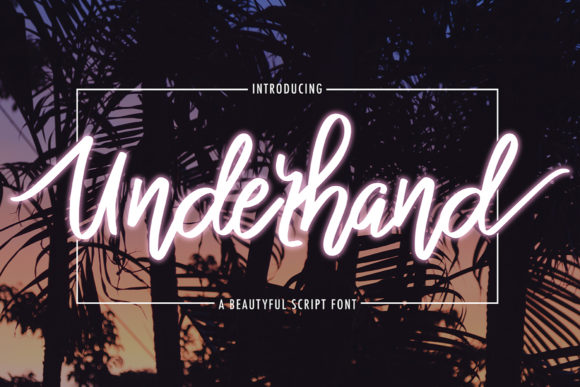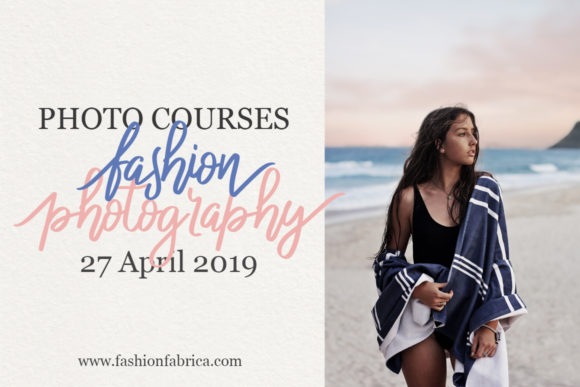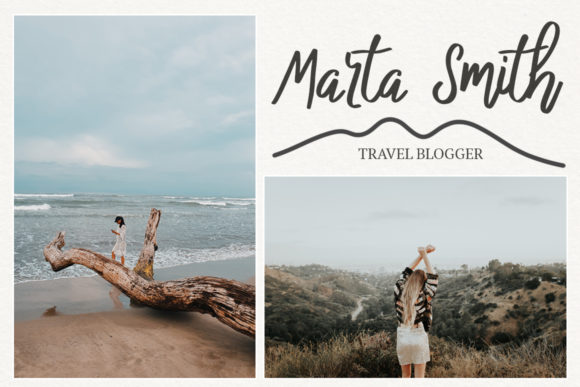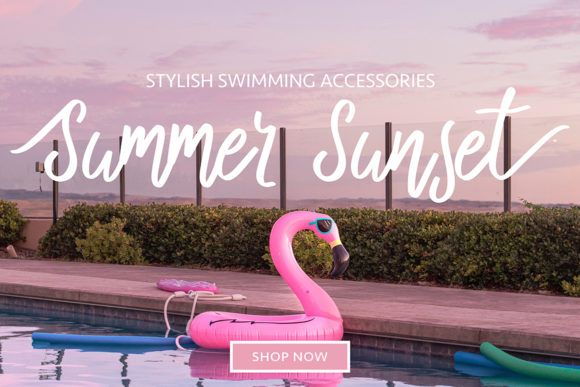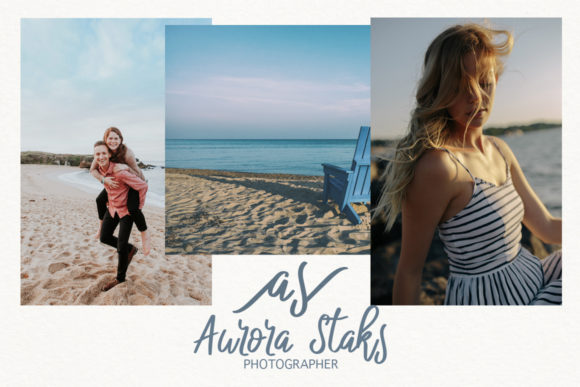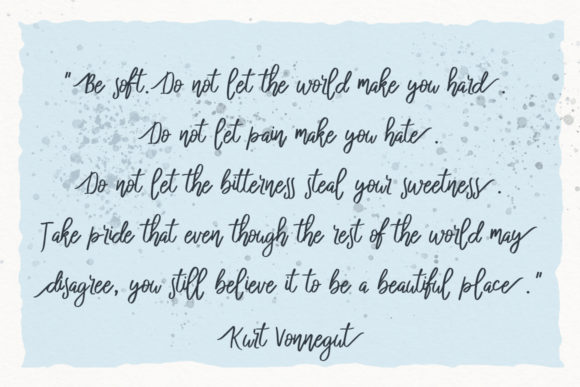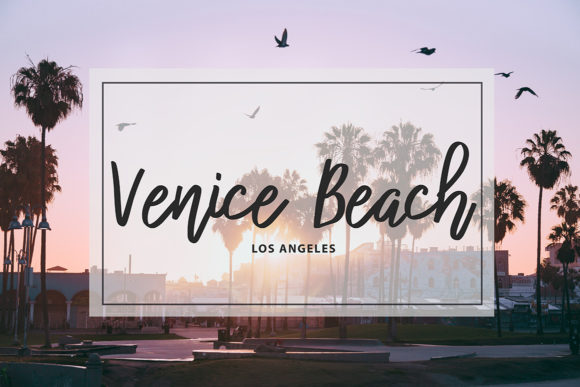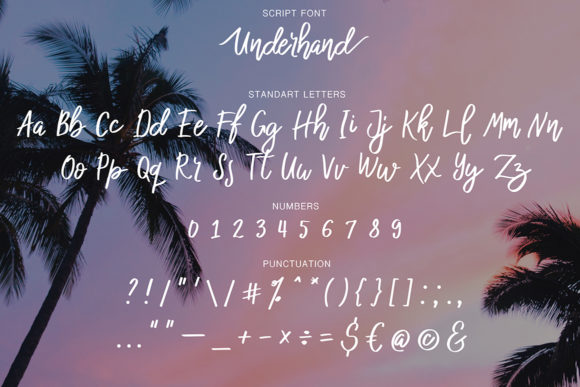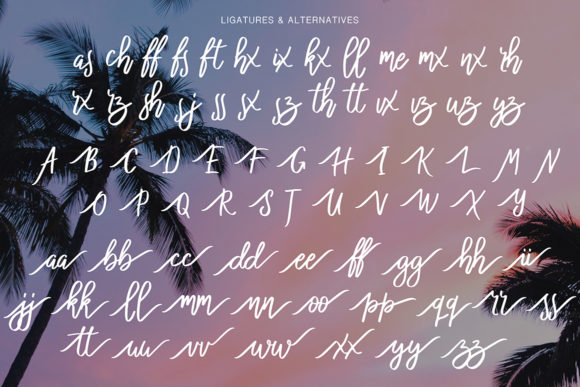
HomeScript FontsUnderhand Font Script Fonts Underhand Font FacebookXPinterestWhatsApp Underhand Font Poster 2 Underhand Font Poster 3 Underhand Font Poster 4 Underhand Font Poster 5 Underhand Font Poster 6 Underhand Font Poster 7 Underhand Font Poster 8 Underhand Font Poster 9 About Underhand Font Underhand is an easy, yet elegant script full of love. Get inspired by its playful and modern style. DOWNLOAD ON CREATIVE FABRICAThis font is sold and delivered by Creative Fabrica. Font Canyon may earn a commission if you buy through this link. People also explored Sport Ngequize Brush Font Sunflower Font Daniela Font Sour Guava Font Trixie Script – 3 Weights Stunegart Font Esthes Font Old Maquine Font SilentBob Font 328 0 TagsUnderhand Font Previous articleEnofive FontNext articleCendonagh Font LEAVE A REPLY Cancel reply Comment: Please enter your comment! Name:* Please enter your name here Email:* You have entered an incorrect email address! Please enter your email address here Website: Save my name, email, and website in this browser for the next time I comment. Personal Use Free Joystix Monospace Personal Use Free Read more about this font Royal Bengal Tiger Personal Use Free Read more about this font Kinda Sweet Personal Use Free Read more about this font Short Message Personal Use Free Read more about this font BLOG Free vs Paid Fonts: Why Investing in Premium Fonts Is Worth It Free vs Paid Fonts: Why Premium Fonts Are Worth It in 2025 The debate of free vs paid fonts continues in the design world. While... Best Fonts for YouTube Videos: Make Your Thumbnails Stand Out Modern Sans-Serif Fonts That Brands Love in 2025 To increase your work productivity, choose the most readable fonts.